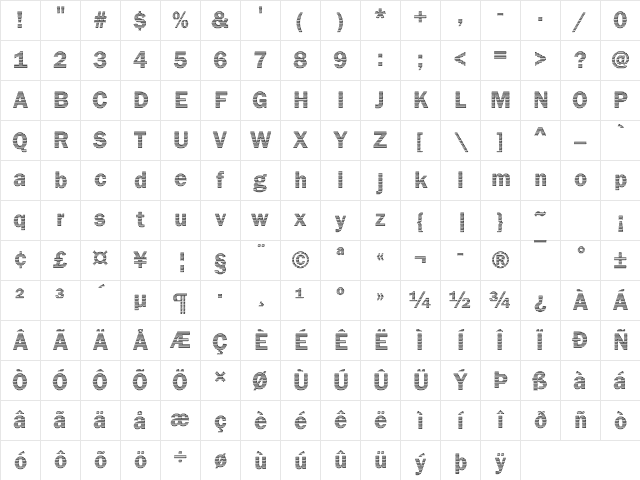
DTCFranklinGotM07 Regular
Design Context for DTCFranklinGotM07
DTCFranklinGotM07 is a composed and adaptable typeface that performs quietly and consistently across a wide range of design contexts.
Pro Tip: Use DTCFranklinGotM07 in both headline and body roles to test its range before committing to a single application.